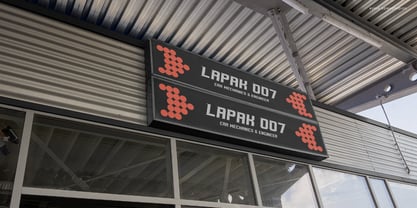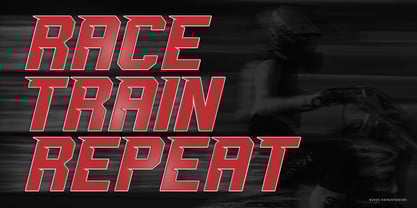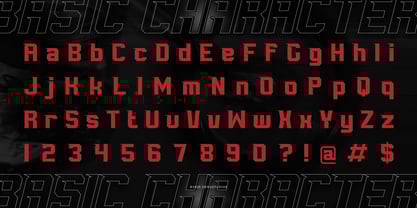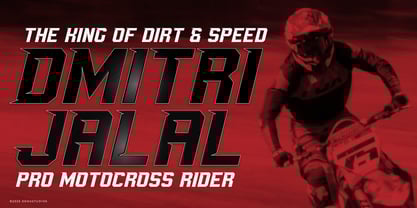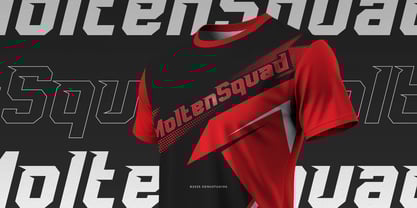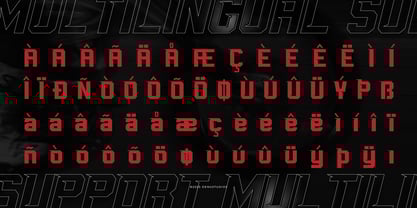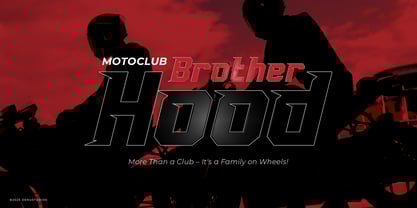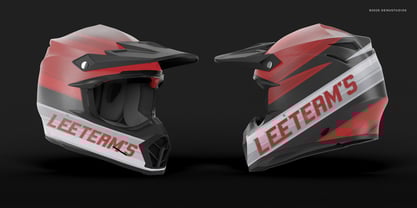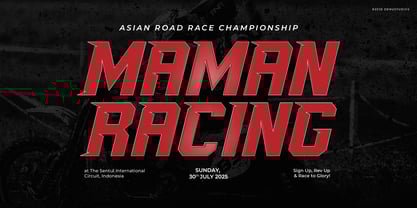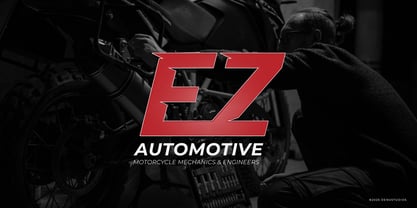
Karbu Speed
by Denustudio
The Karbu Speed Font Family was designed by Dede Nugraha and published by Denustudio. Karbu Speed contains 2 styles and family package options.
Karbu Speed | Bold Racing Font, from Denustudios, suitable for any projects such as: logos, branding projects, homeware designs, product packaging, mugs, quotes, posters, shopping bags, t-shirts, book covers, name card, invitation cards, greeting cards, label, photography, watermark, special events, and all your other lovely projects that need Bold Racing Font a taste.